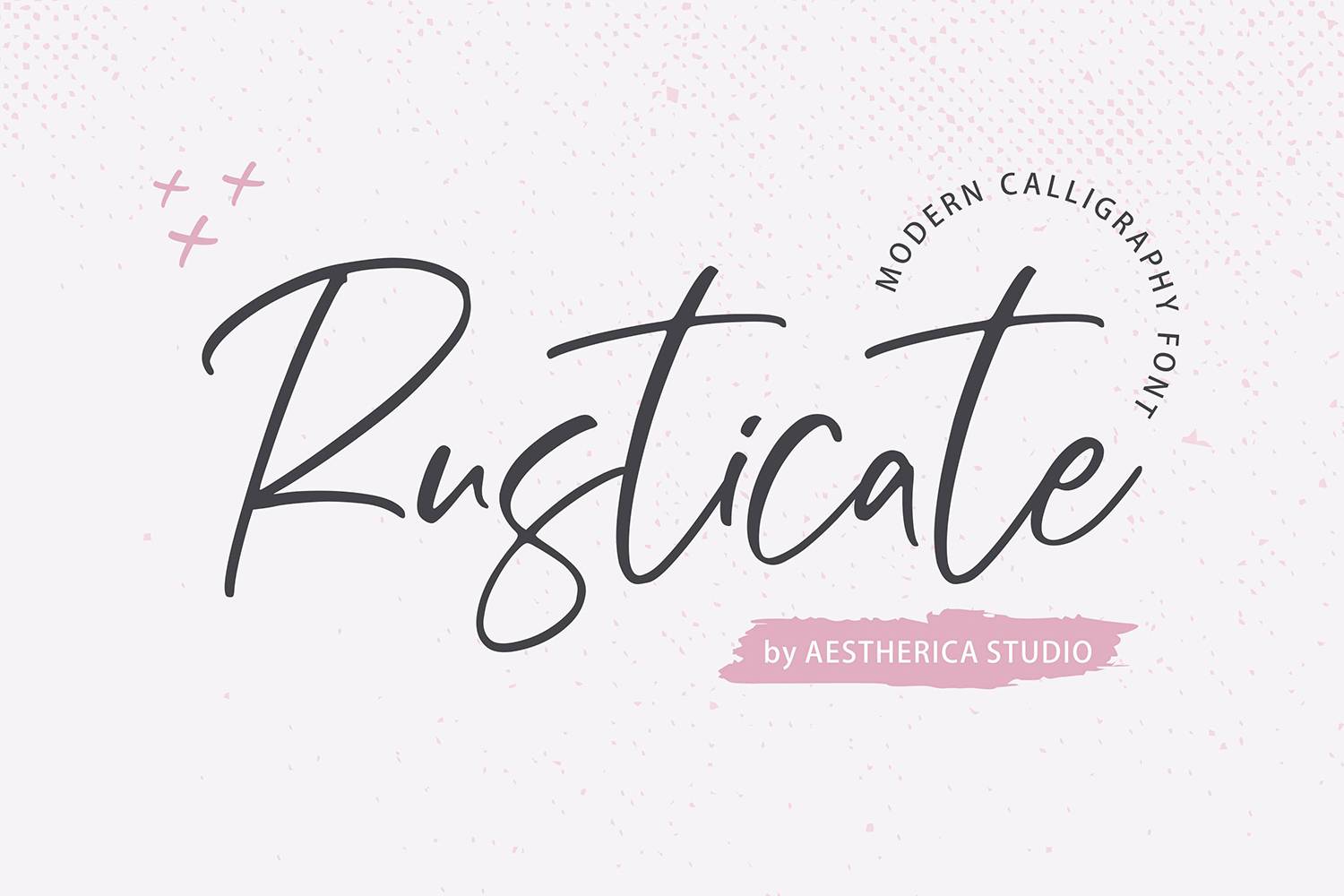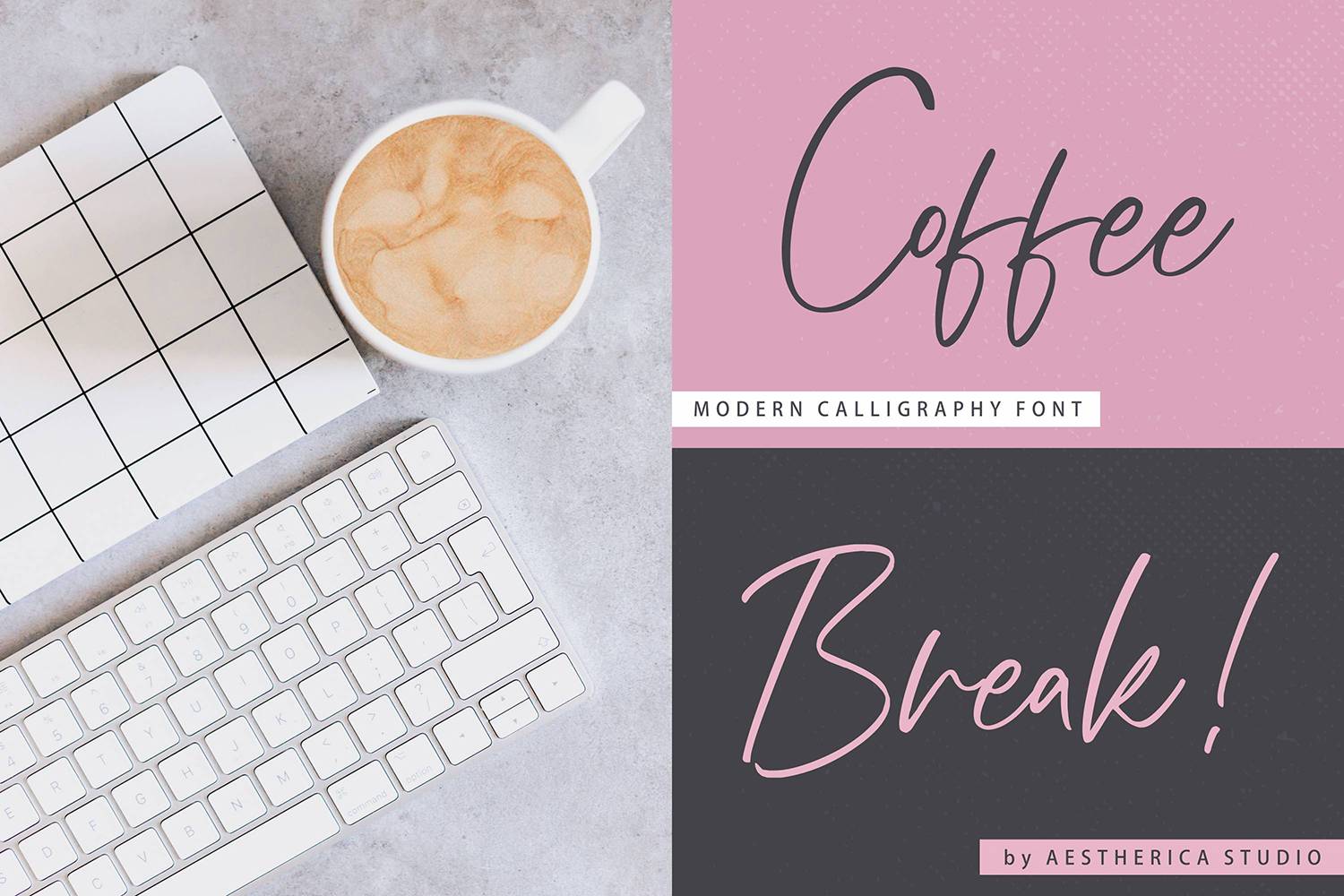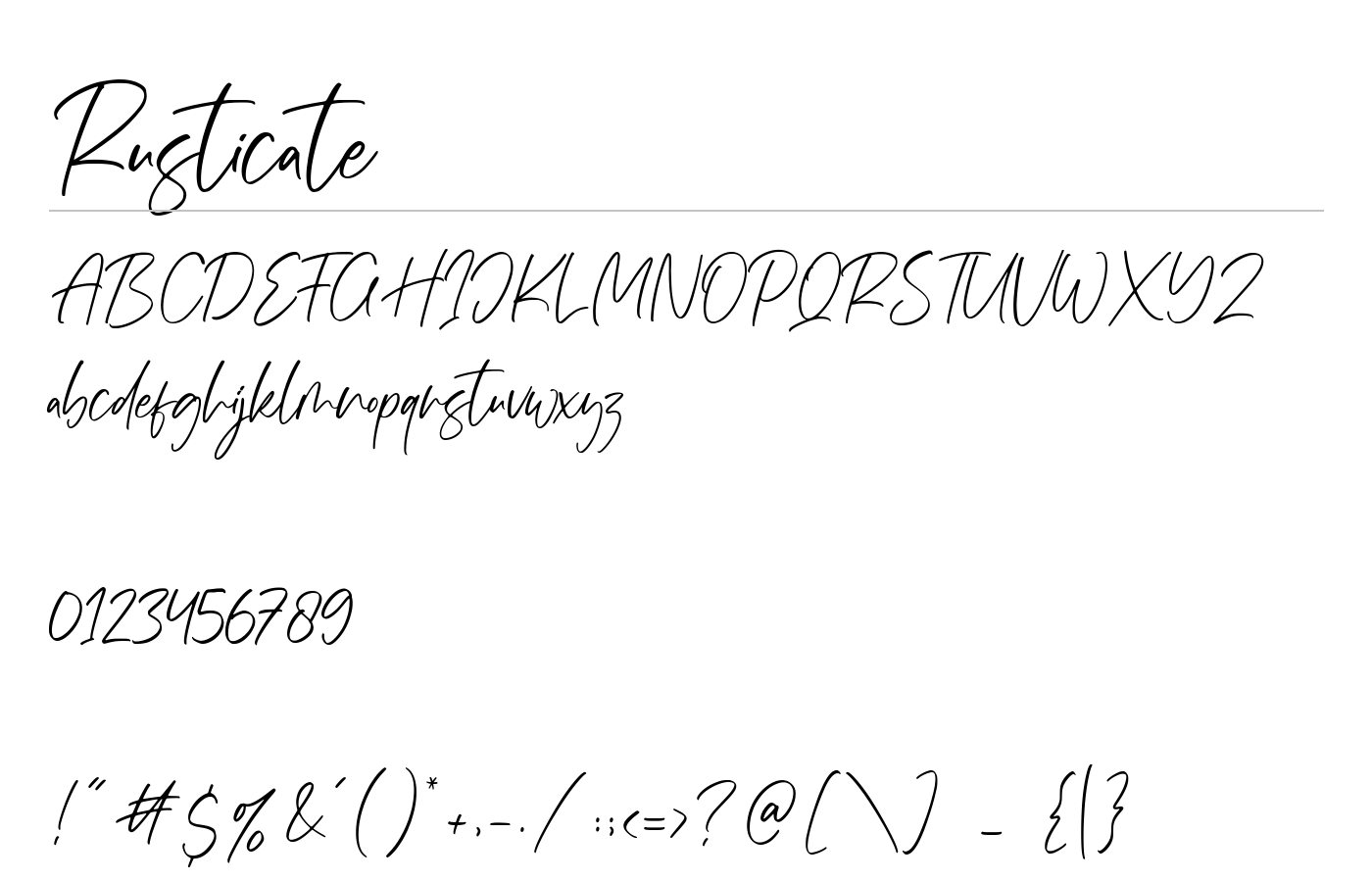
Rusticate is a delicate, modern script font with a light weight and slender strokes that evoke an elegant, handwritten feel. Its slightly condensed letterforms and smooth, flowing lines make it perfect for creating a personal, stylish touch in branding, invitations, and logos, especially where a gentle, sophisticated mood is desired. This font’s airy and refined style works beautifully for fashion, lifestyle, and creative projects that seek a contemporary yet intimate aesthetic.
Rusticate Font
About Rusticate Font